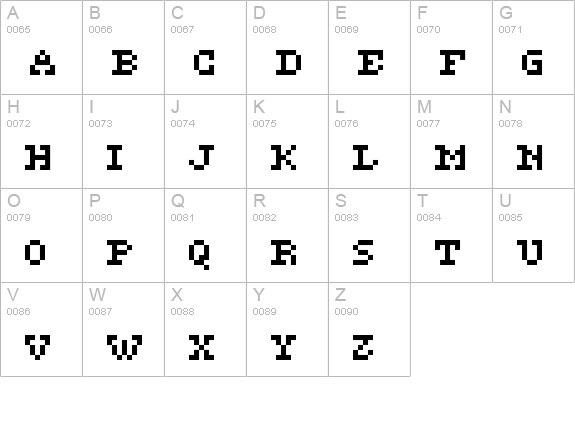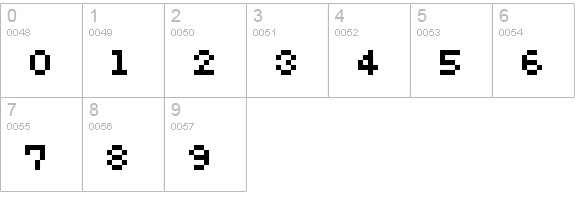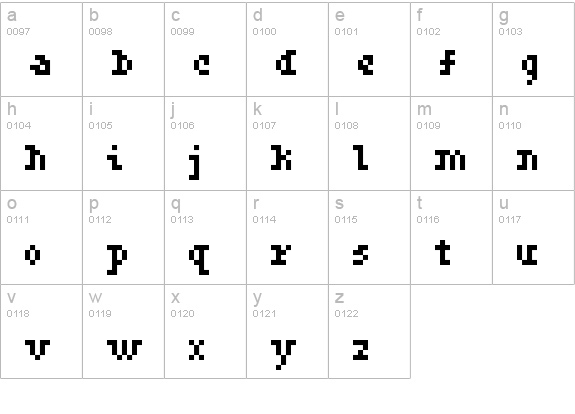
Ceriph 05_56 font is a modern and stylish typeface that exudes elegance and sophistication. Its sleek lines and unique design make it perfect for a wide range of projects, from branding to editorial design. The font's clean and minimalistic aesthetic allows for easy readability while still making a bold statement. What sets Ceriph 05_56 font apart is its versatility - it can be used for both headlines and body text, giving your designs a cohesive and polished look. Whether you're creating a logo, poster, or website, this font is sure to make a lasting impression. Best of all, Ceriph 05_56 font is available for free download at FontsMarket.com, making it accessible to designers of all levels. Don't miss out on this opportunity to elevate your designs with this stunning and contemporary typeface.